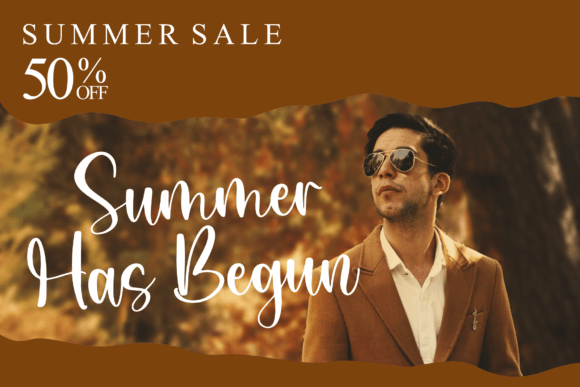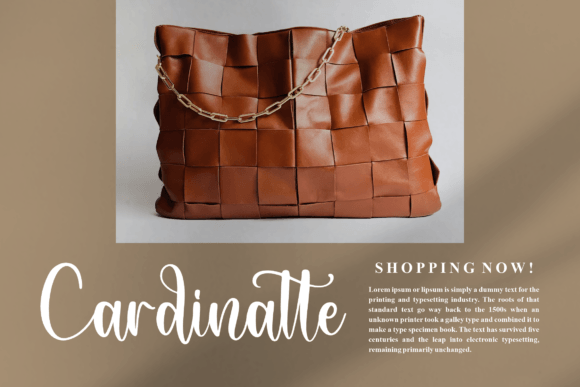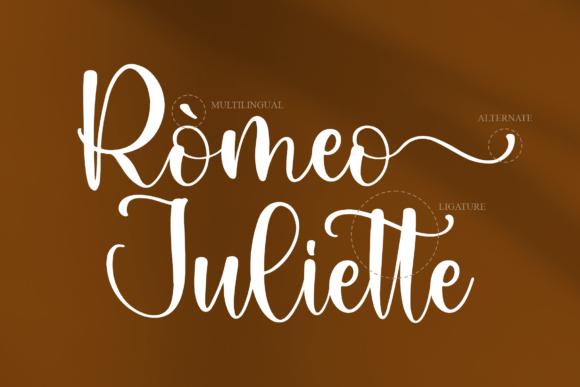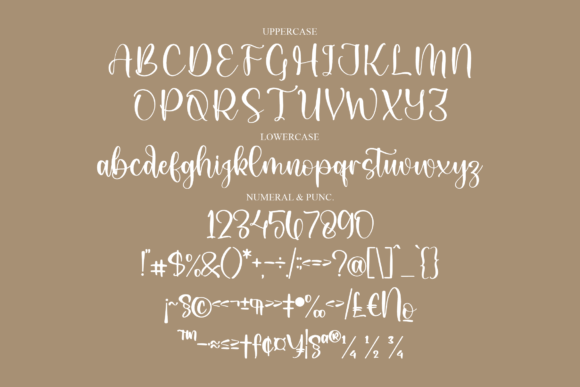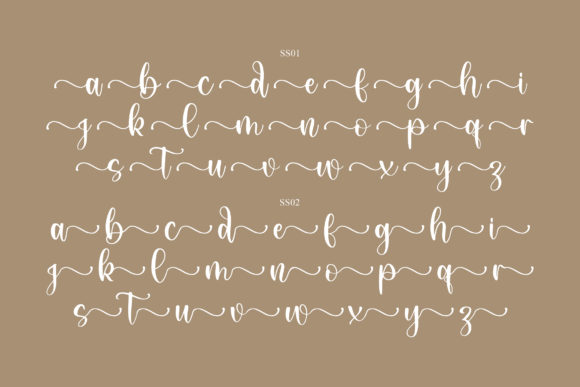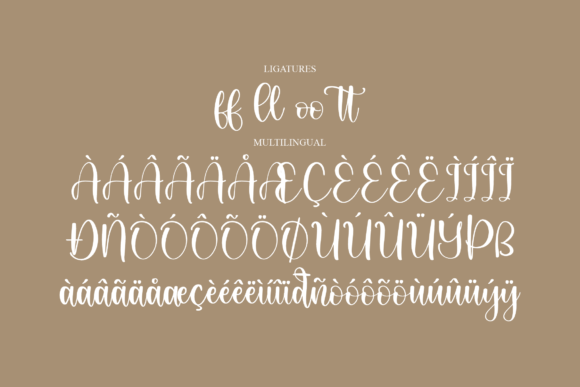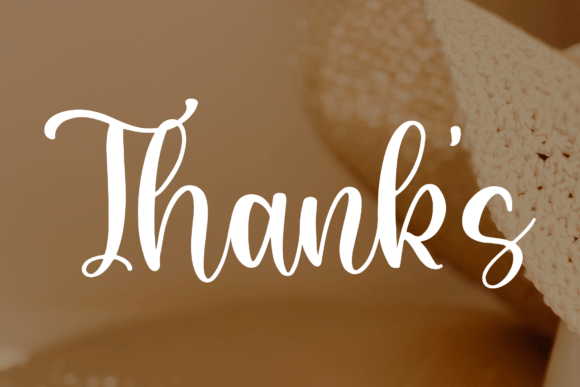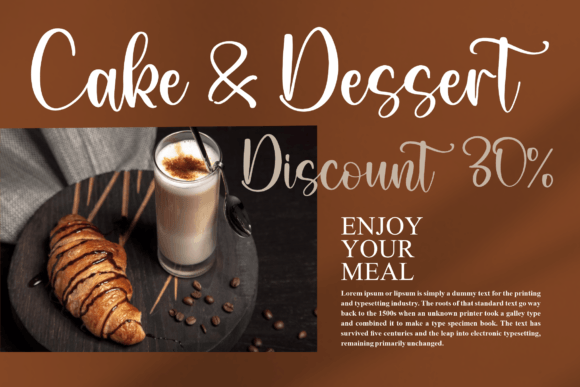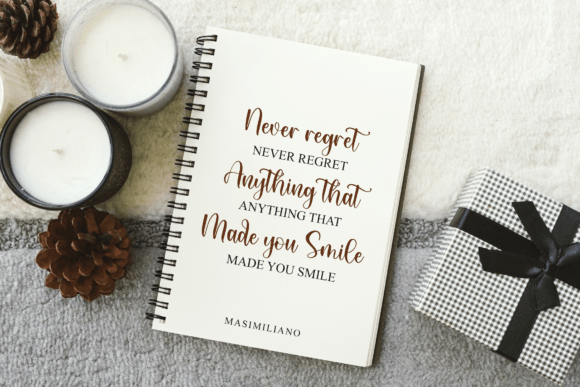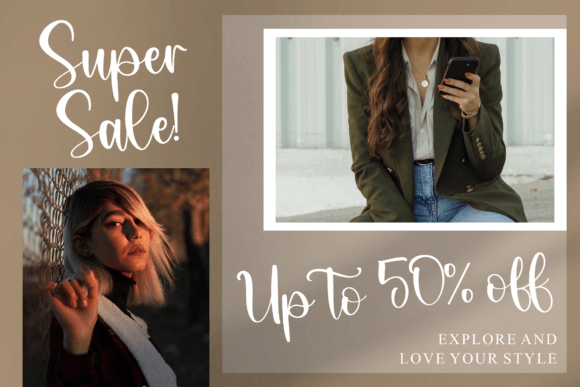
Juliette Font
About Juliette Font
Meet Juliette, a lovely and delicate script font that radiates elegance and class. Meticulously crafted for those who seek a beautiful and refreshing aesthetic for their designs, Juliette is a font that embodies sophistication and charm.
The beauty of Juliette lies in its graceful and delicate script. Each letter is meticulously designed to convey a sense of refinement, making it a perfect choice for projects that demand an elegant touch. The font’s exquisite details bring a refreshing and timeless look to your designs.
Consider using Juliette in contexts where beauty and sophistication are paramount. Its delicate strokes and elegant curves make it ideal for wedding invitations, adding a touch of romance to the celebration. Whether it’s logos, branding, or any project that requires a beautiful and refreshing look, Juliette is poised to enhance your creative vision.
This font becomes a statement piece, not just a design element. Picture Juliette on a brand logo, where its elegance communicates a strong and refined brand identity. Envision it on a product label, bringing a touch of sophistication to your packaging. Its versatility extends to social media posts, where it can capture attention with its charming and refreshing appearance.
In essence, Juliette is not just a font; it’s a design companion that elevates your creations with an infusion of elegance and class. Whether you’re working on invitations, branding, or any project where beauty is key, Juliette is ready to be the enchanting and delicate script that adds a touch of timeless sophistication to your designs.